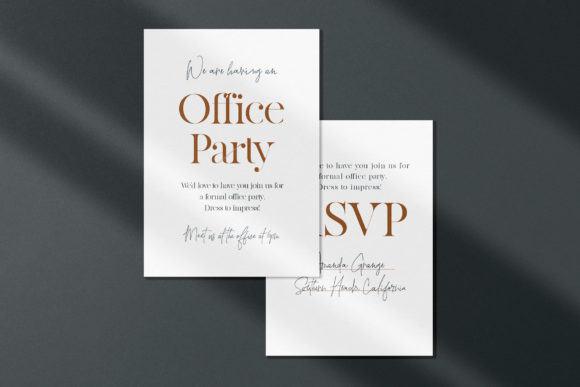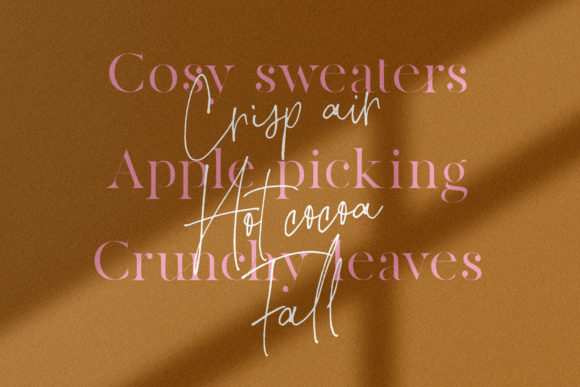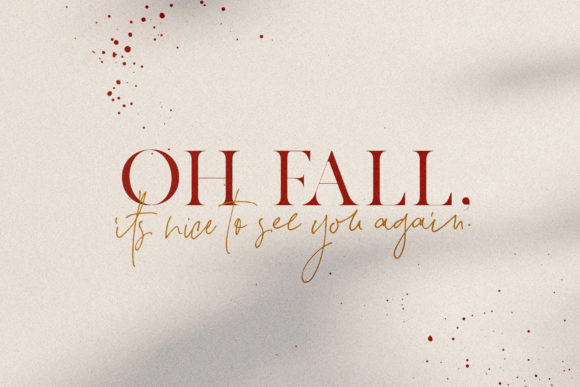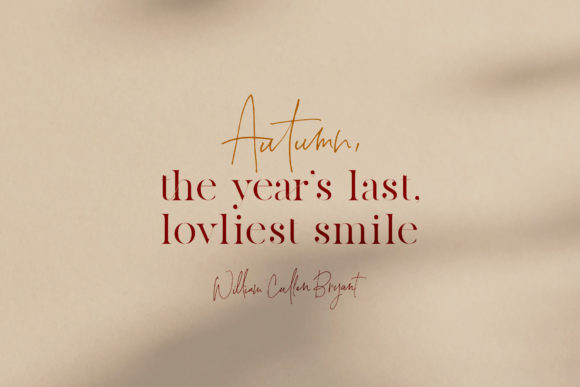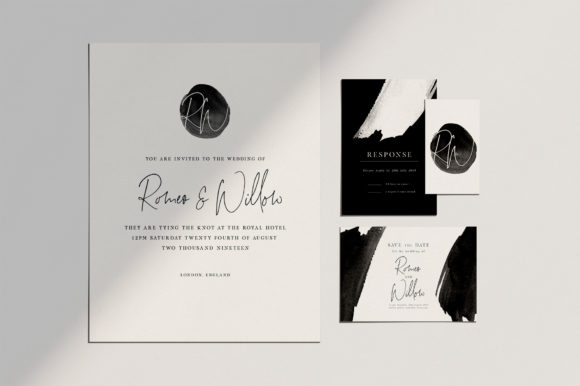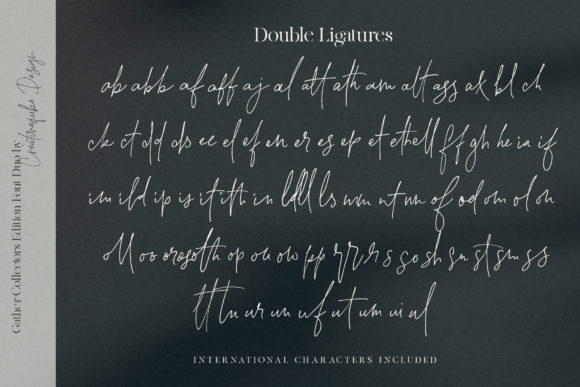
Gather Collector’s Edition Font: Elevate Your Designs with Elegance and Versatility
Are you a designer, crafter, or DIY enthusiast looking for the perfect font to elevate your projects? Look no further than the Gather Collector’s Edition Font, a stunning duo of script and serif fonts that will add a touch of sophistication and elegance to any design. In this article, we’ll dive into the features and benefits of this gorgeous font, and explore how it can be used to take your designs to the next level.
A Beautifully Crafted Font Duo
The Gather Collector’s Edition Font is a carefully crafted duo of script and serif fonts that are designed to work beautifully together. The script font is elegant and flowing, with delicate curves and swashes that add a touch of whimsy and romance to any design. The serif font, on the other hand, is sturdy and dependable, with clean lines and a classic feel that works perfectly for body text and other longer-form content.
When used together, the Gather Collector’s Edition Font duo creates a stunning visual contrast that adds depth and interest to any design. Whether you’re creating a wedding invitation, a branding campaign, or a DIY craft project, this font duo is sure to impress.
One of the standout features of the Gather Collector’s Edition Font is its incredible versatility. This font duo can be used in a wide range of applications, from elegant wedding invitations and formal event announcements to DIY craft projects and digital designs.
Whether you’re a professional designer or a DIY enthusiast, the Gather Collector’s Edition Font is easy to use and adaptable to any design style. The font files include a range of features, such as swashes, ligatures, and alternate characters, that allow you to customize the font to suit your needs.
The Gather Collector’s Edition Font is a dream come true for designers and crafters alike. With its elegant script and sturdy serif fonts, this duo is perfect for creating a wide range of designs, from:
• Wedding invitations and event announcements
• Branding campaigns and marketing materials
• DIY craft projects, such as card making and scrapbooking
• Digital designs, such as social media graphics and blog headers
Whether you’re creating digital or physical designs, the Gather Collector’s Edition Font is sure to add a touch of elegance and sophistication to your projects.
So what sets the Gather Collector’s Edition Font apart from other fonts on the market? Here are just a few of its key features and benefits:
• Elegant script and serif fonts: The Gather Collector’s Edition Font features a beautifully crafted script font and a sturdy serif font that work perfectly together.
• Versatile and adaptable: This font duo can be used in a wide range of applications, from formal event announcements to DIY craft projects.
• Easy to use: The font files include a range of features, such as swashes and ligatures, that make it easy to customize the font to suit your needs.
• High-quality design: The Gather Collector’s Edition Font is designed to the highest standards, with clean lines, elegant curves, and a range of features that ensure it looks great in any design.
In conclusion, the Gather Collector’s Edition Font is a gorgeous and versatile duo font that is perfect for designers, crafters, and DIY enthusiasts alike. With its elegant script and sturdy serif fonts, this duo is sure to add a touch of sophistication and elegance to any design.